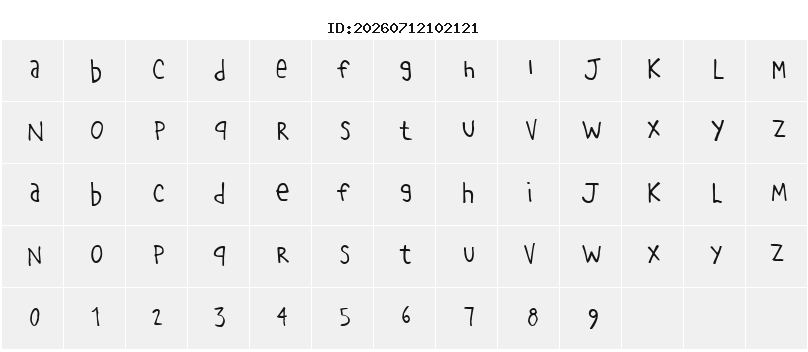
Manita Preview
• Font Name: Manita
• Full Font Name: Manita
About Manita.ttf
Manita.ttf is a modern, elegant sans-serif font designed for ultimate readability and visual harmony. Perfect for branding, headlines, web design, and print materials.